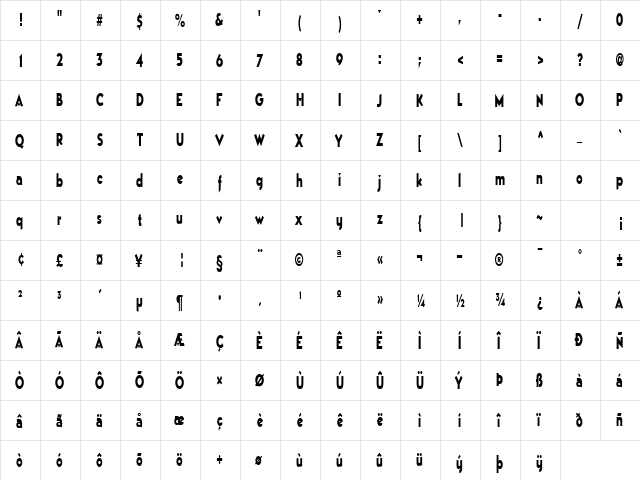
Best Regular
Design Context for Best Typeface
Best takes a measured approach to typography — its balanced proportions and neutral character make it a reliable workhorse for both digital and print work.